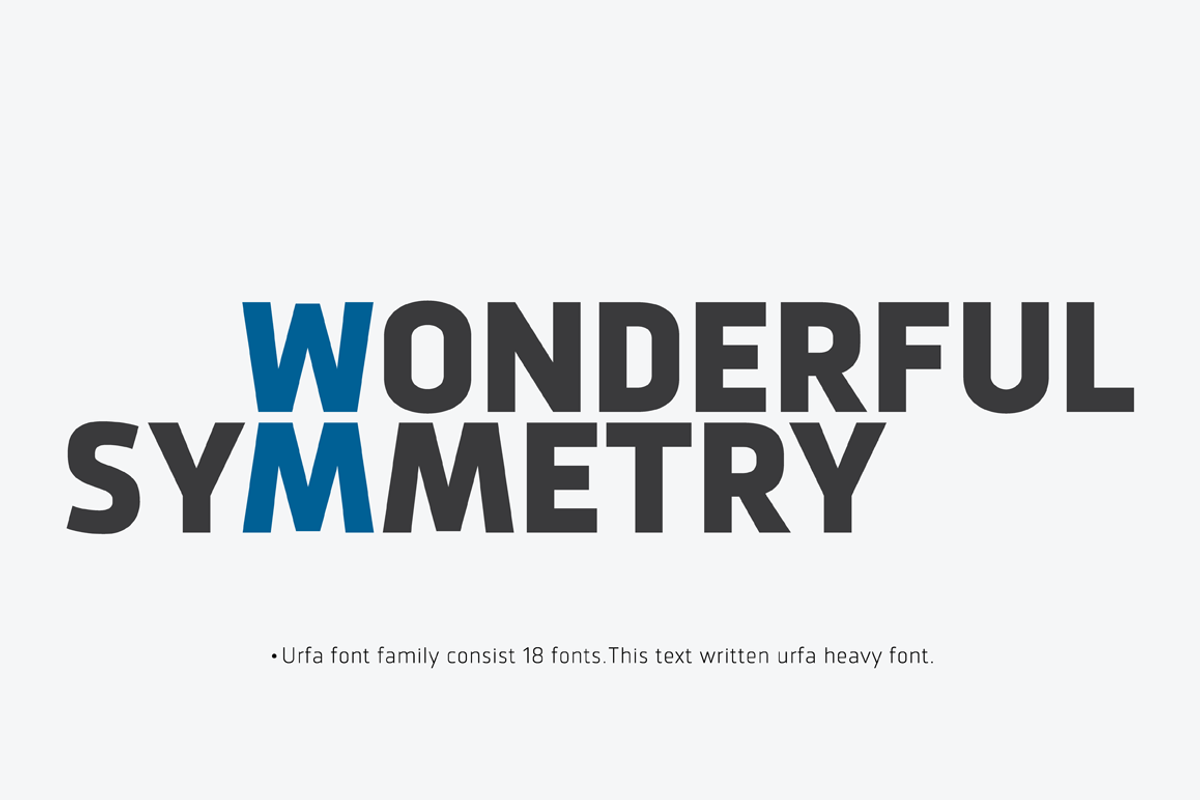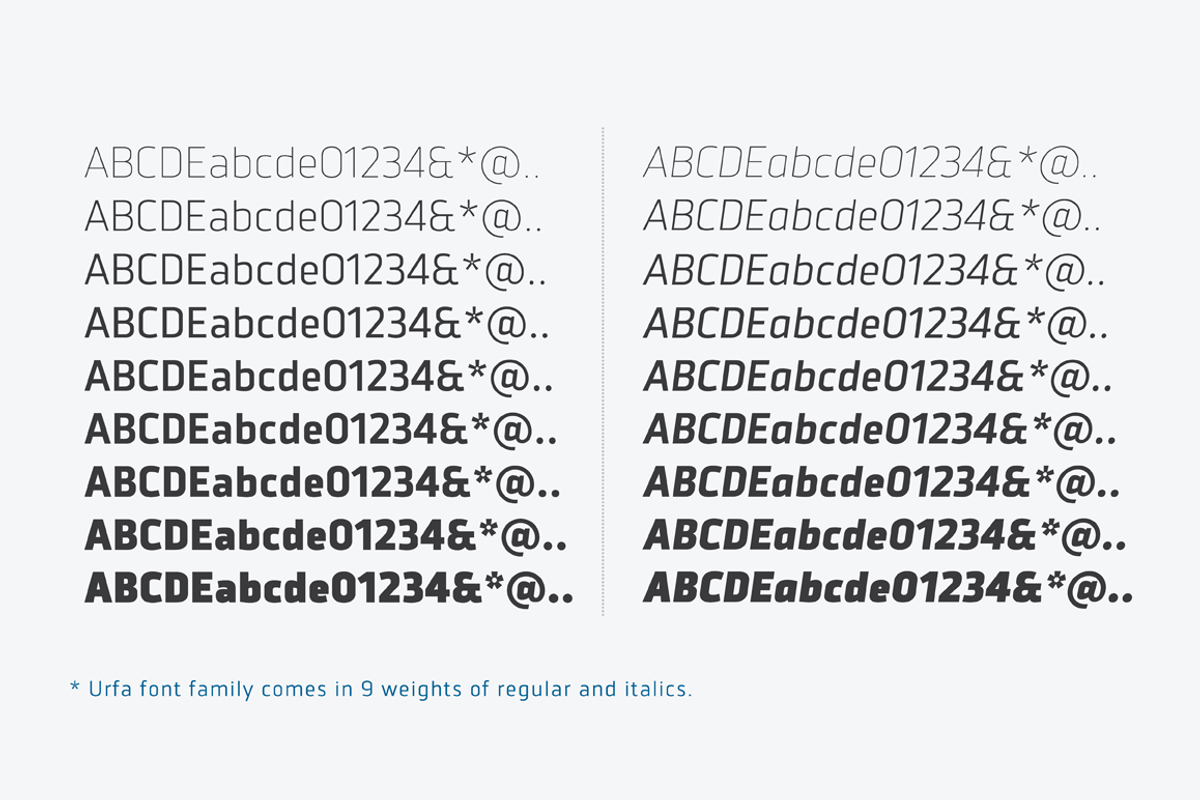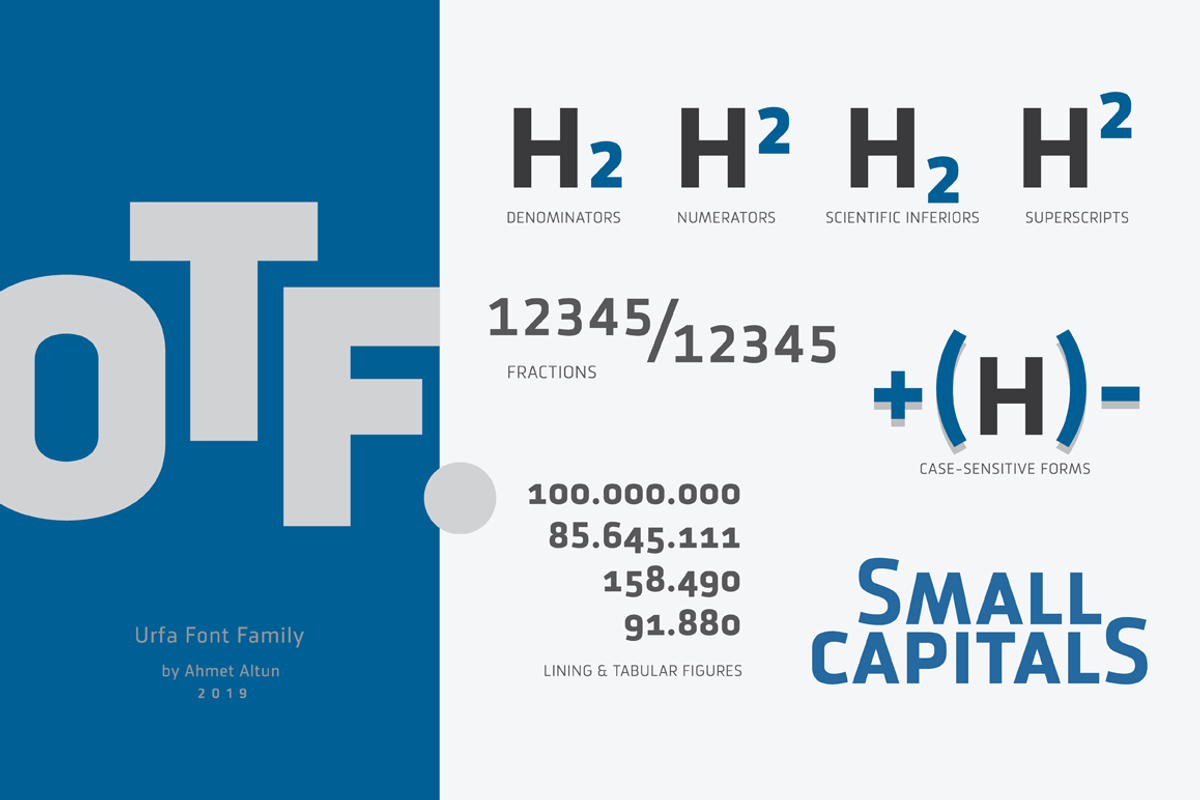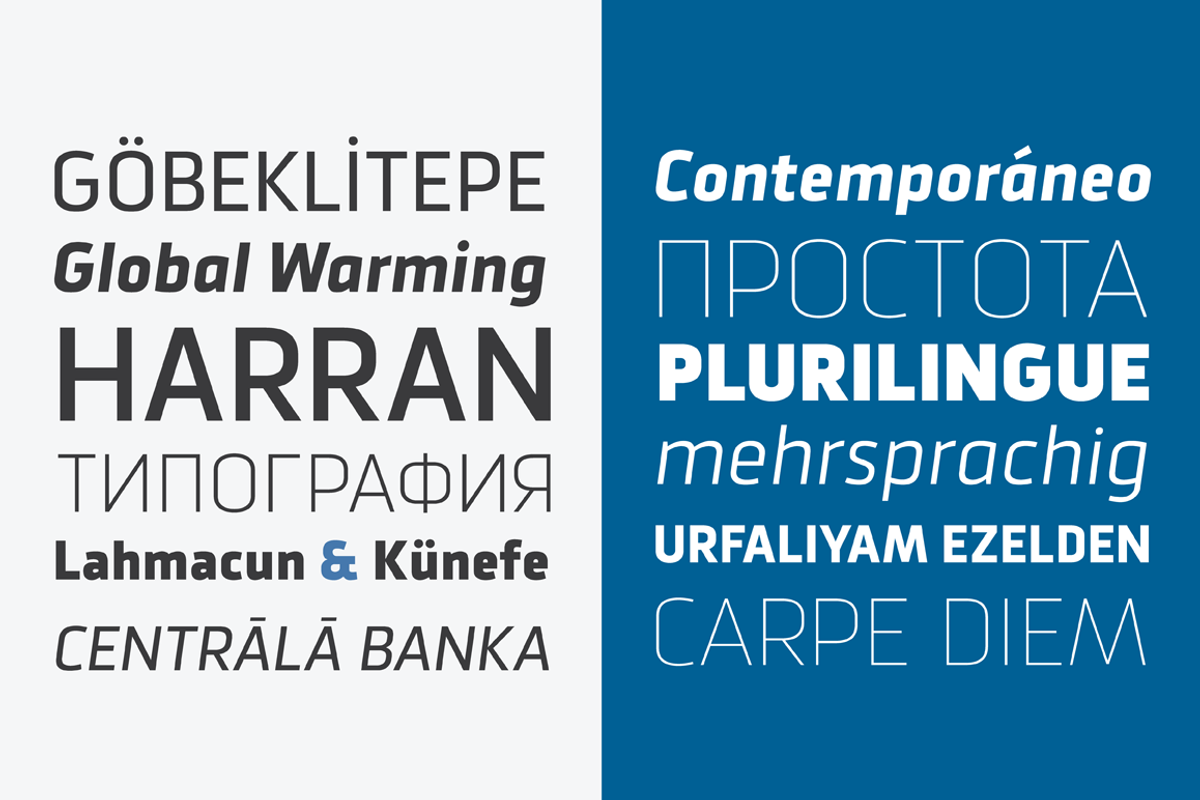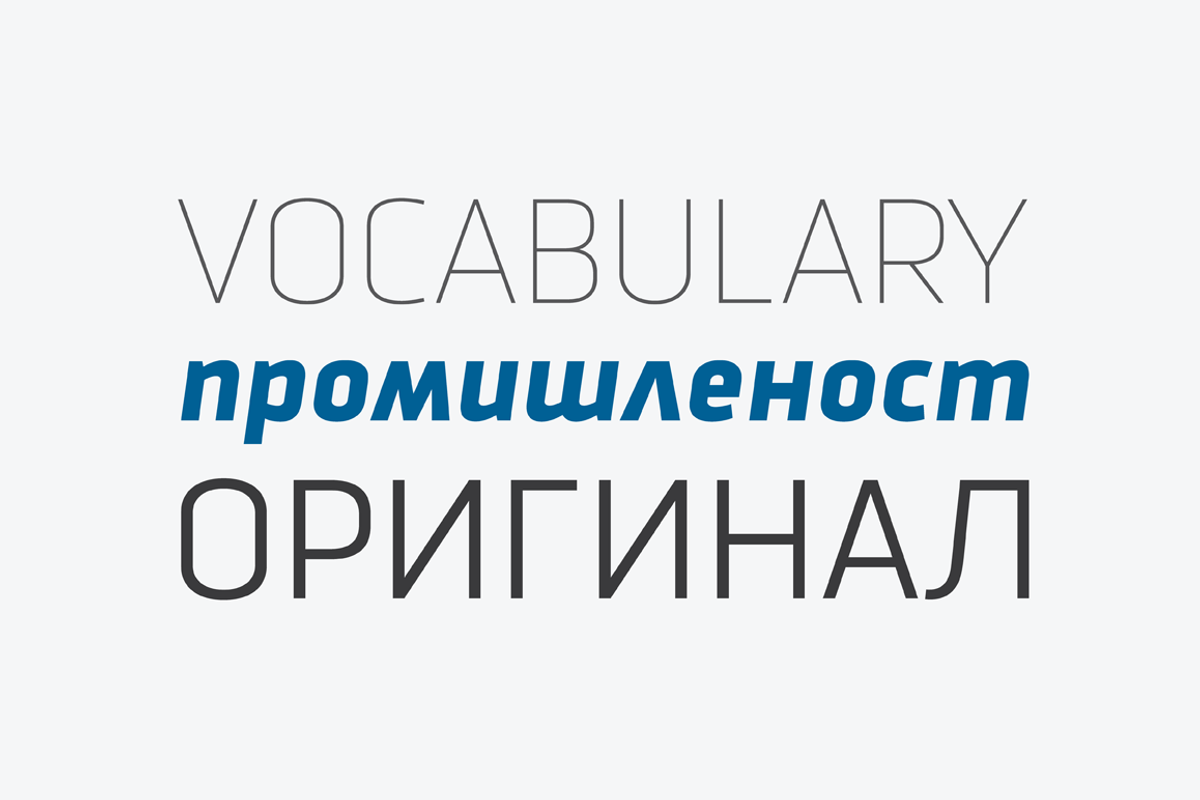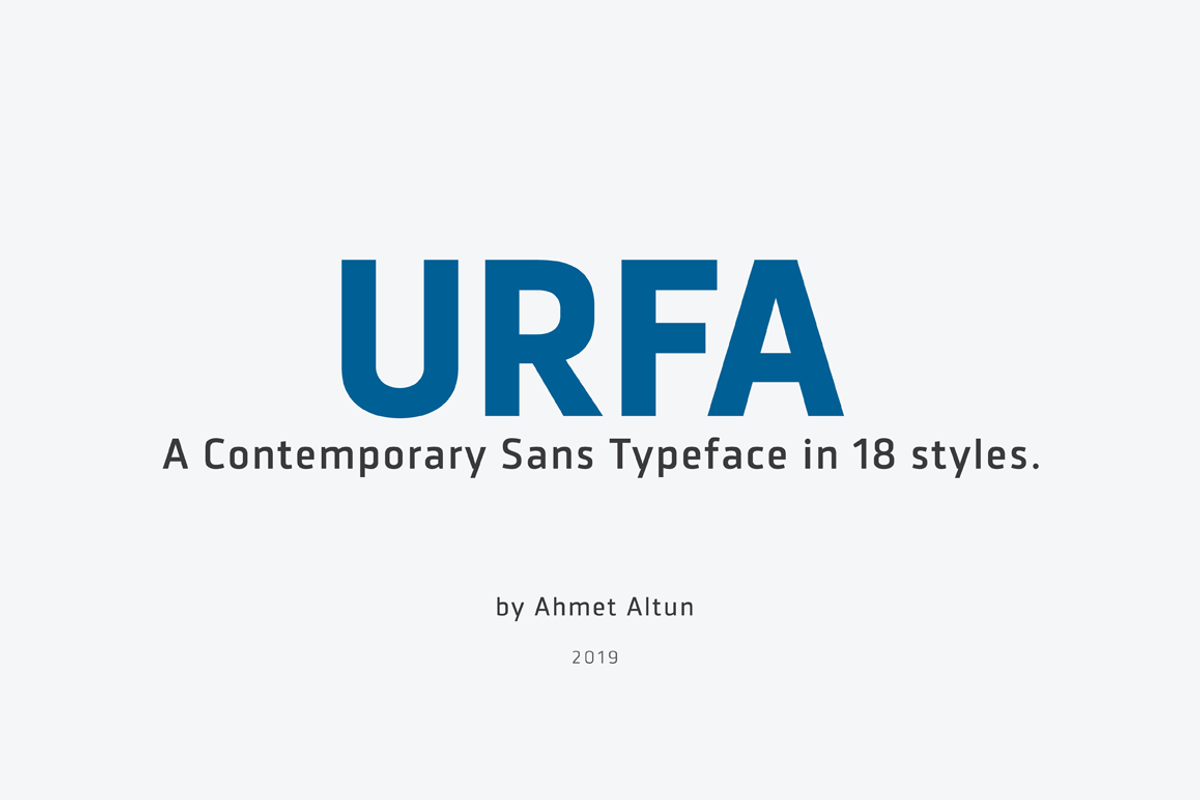
Urfa Font Family
The Urfa font family comes in nine weights of Normal and Italic. In addition, all weights contain small caps in both italic and normal. With the Urfa font family, you can create beautiful works for the web, including logos, banners, body copy, and presentations. Urfa typeface also works nicely in print formats such as posters, T-shirts, magazines, and affiches. Because of its eye-pleasing style, this font is both effective and versatile. It supports a wide range of languages, including Extended Latin and Cyrillic.
Why Urfa Font Family is worth a look
Urfa Font Family by Ahmet Altun fits naturally into Branding, posters, packaging, typography.